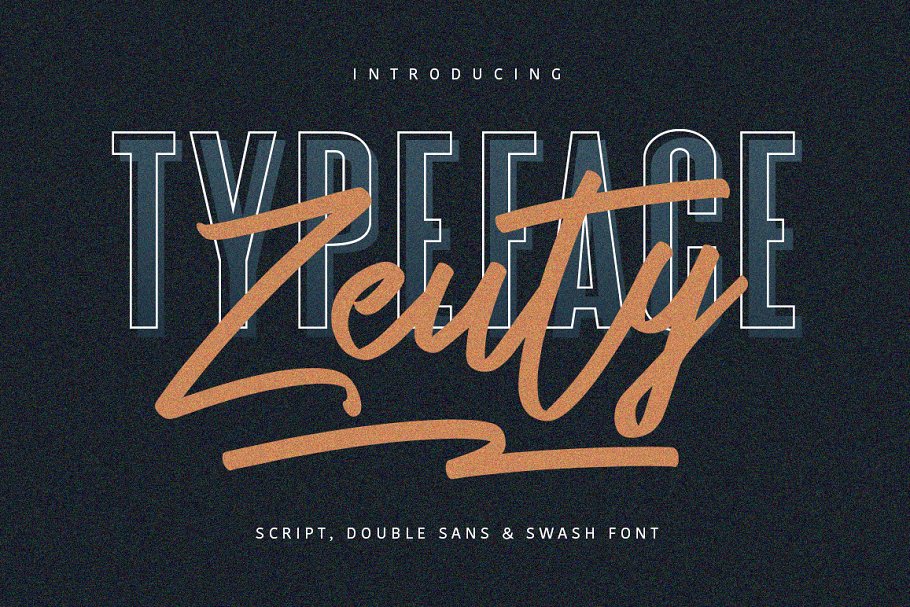
Are you tired of using the same old fonts in your designs? Do you want to give your creations a unique and authentic touch? Look no further than the Zeuty Typeface - Free Sans Serif collection! Created by the talented Maulana Creative, this collection is designed to elevate your designs and give them an authentic handcrafted feel.
Whether you're working on a signature, stationery, logo, typography quotes, magazine or book cover, website header, clothing, branding, packaging design, or any other project, the Zeuty Typeface Collection is the perfect choice. With its versatile script font, swash font version, sans regular font, and sans outline version font, you'll have endless possibilities to explore.
But what sets the Zeuty Typeface - Free Sans Serif collection apart? It's not just about the variety of fonts included, but the attention to detail and quality. With over 340 total glyphs, every character is meticulously crafted to ensure a seamless and visually stunning result.
Imagine the impact these fonts will have on your designs. The script font will add a touch of elegance and sophistication, perfect for invitations or branding materials. The swash font version will bring a sense of playfulness and creativity, ideal for quotes or social media graphics. The sans regular font offers a clean and modern look, while the sans outline version font adds a trendy and edgy vibe to your designs.